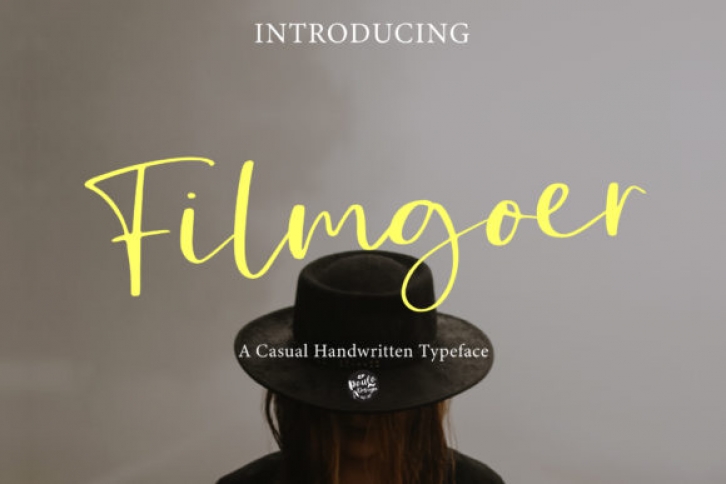
The Filmgoer is a casual script. It has a casual handwritten look and was designed for feminine logo projects, printed quotes, lovely wedding invitation cards, branding, blog posts, and much more!